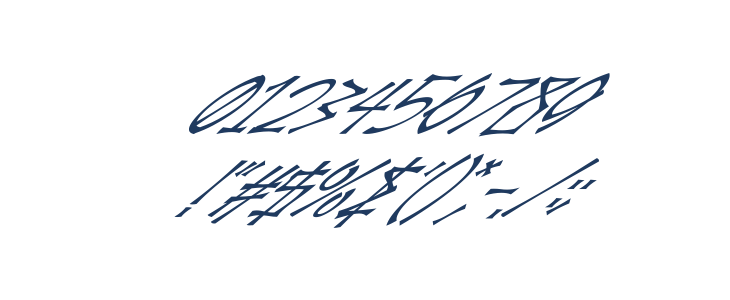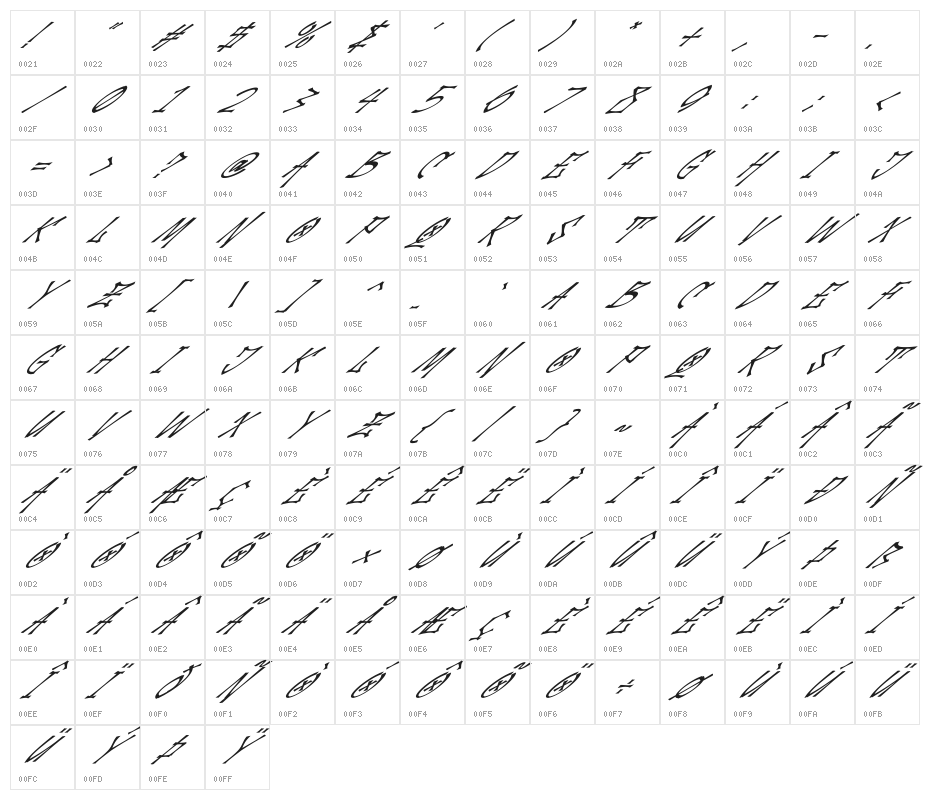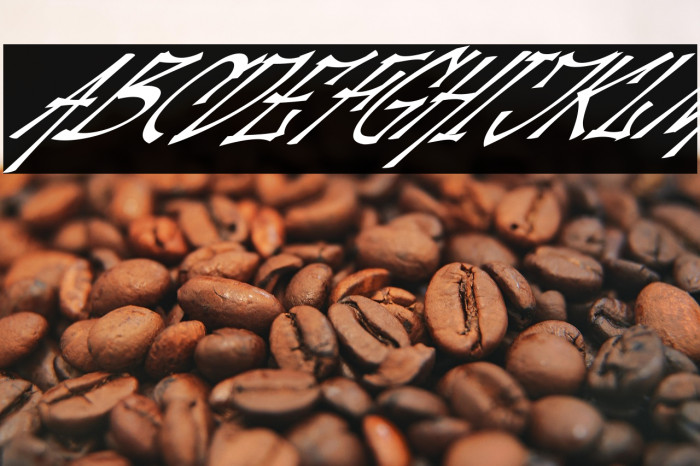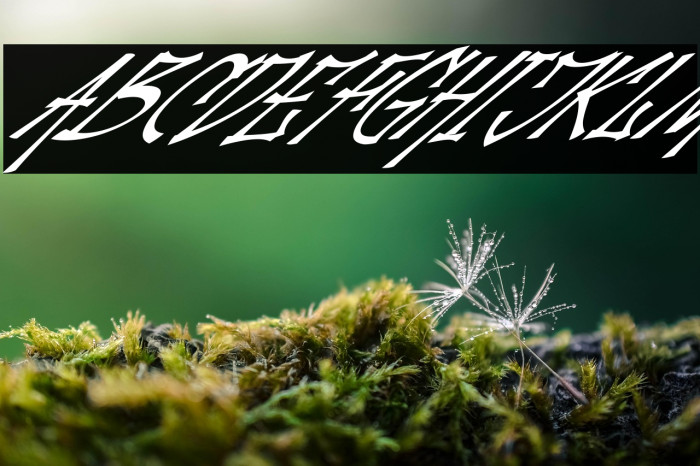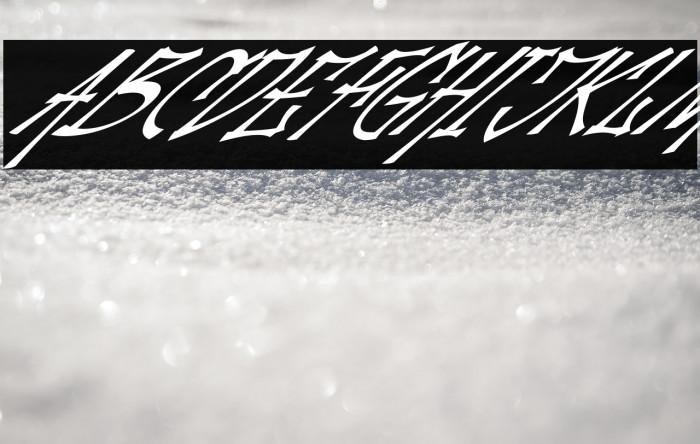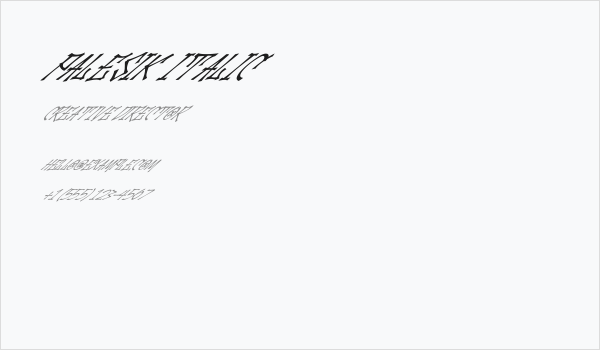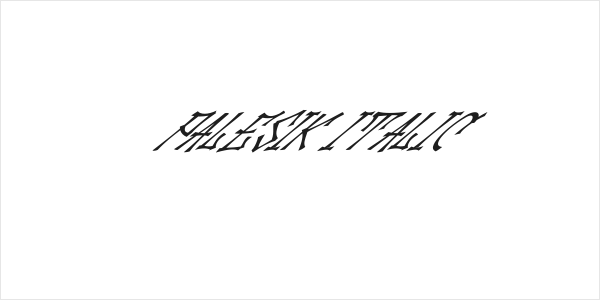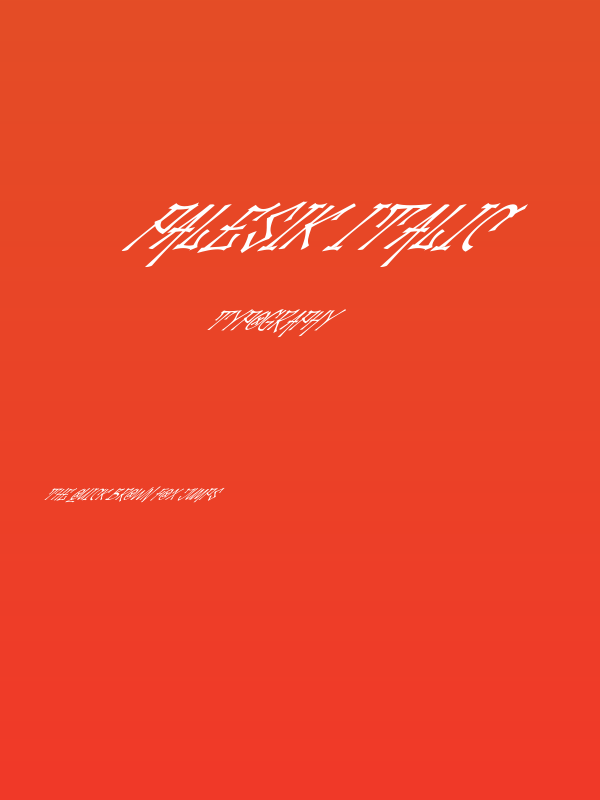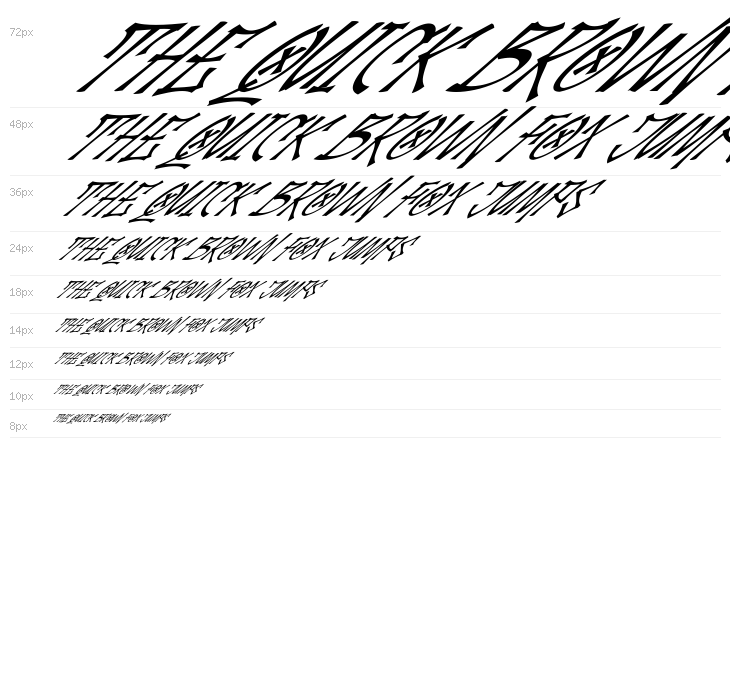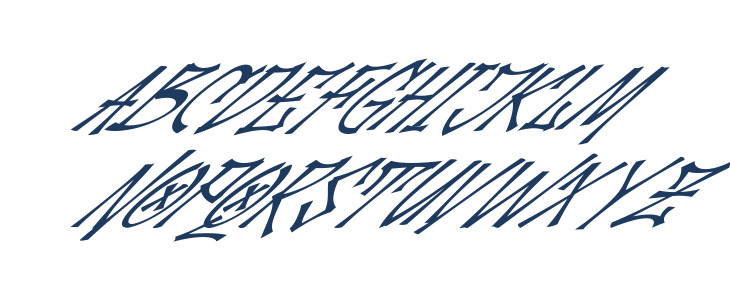
Palesik Italic Font
Palesik Italic Description
This font exhibits a dynamic and energetic style with its sharp, angular strokes and pronounced slant. The characters are bold and italicized, giving a sense of movement and urgency. The uppercase and lowercase letters maintain a consistent style, with elongated forms and sharp edges. The numerals and special characters follow the same aesthetic, ensuring a cohesive look across all glyphs. The font's aggressive and modern appearance makes it stand out, suitable for projects that require a strong visual impact.